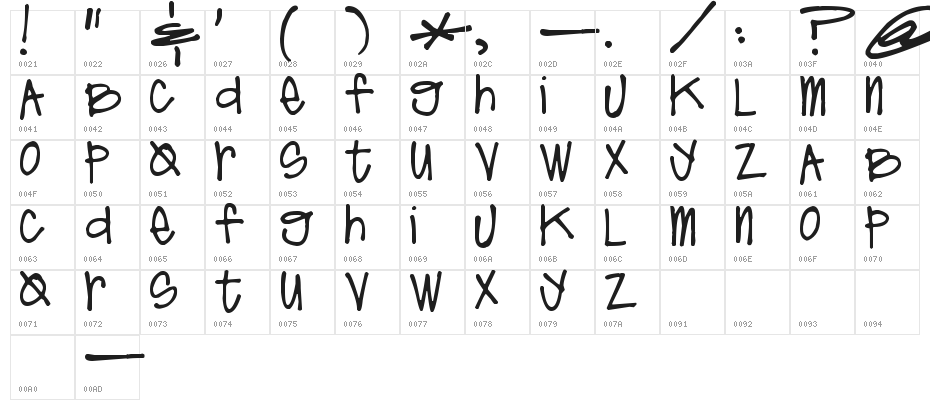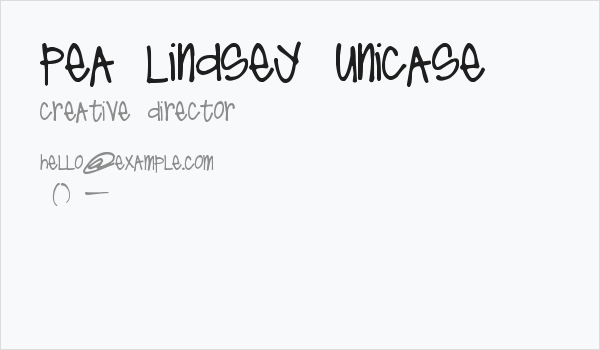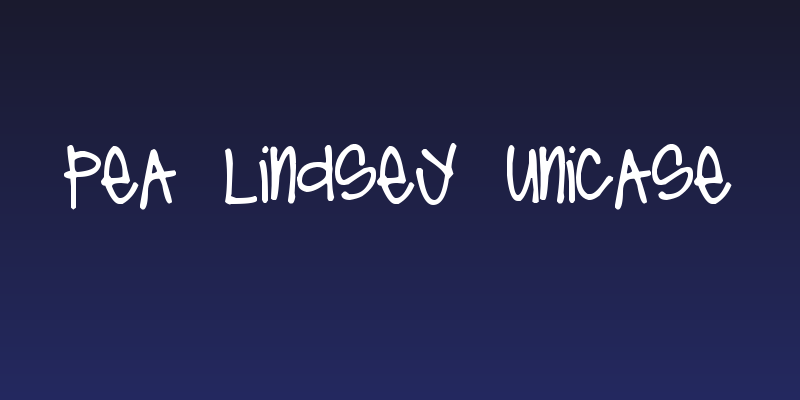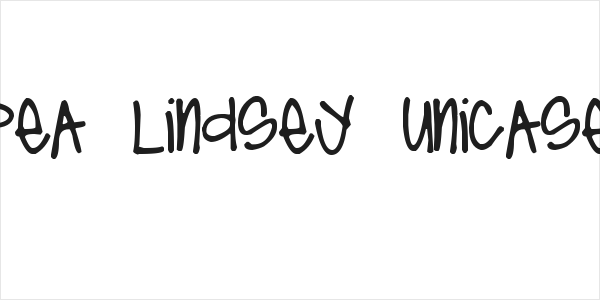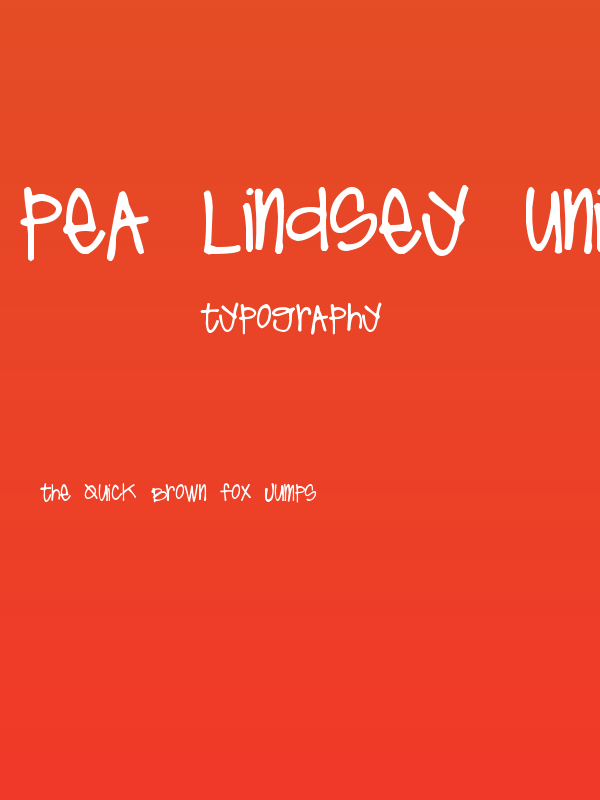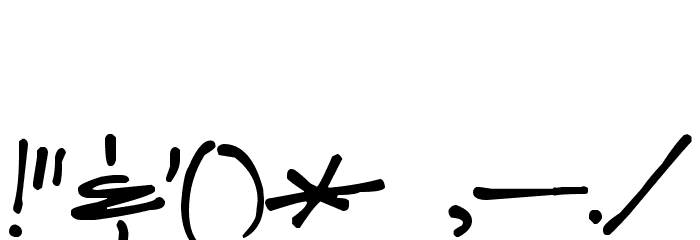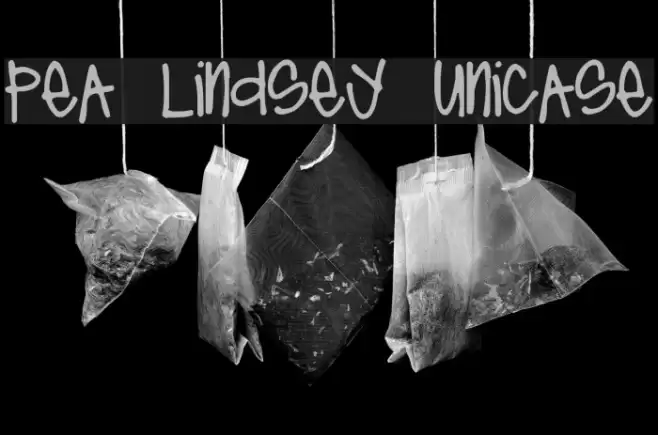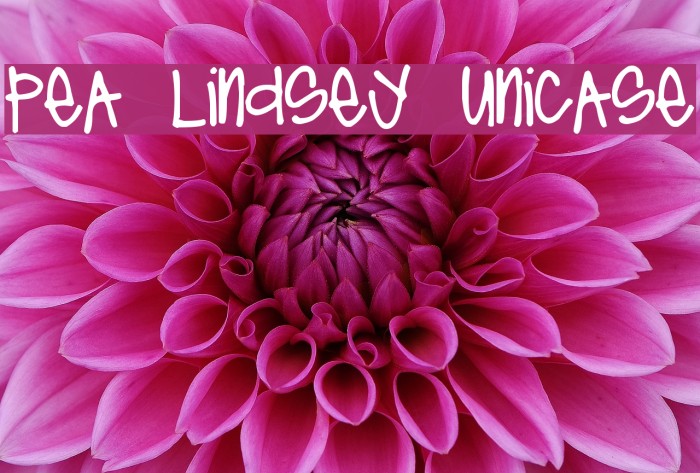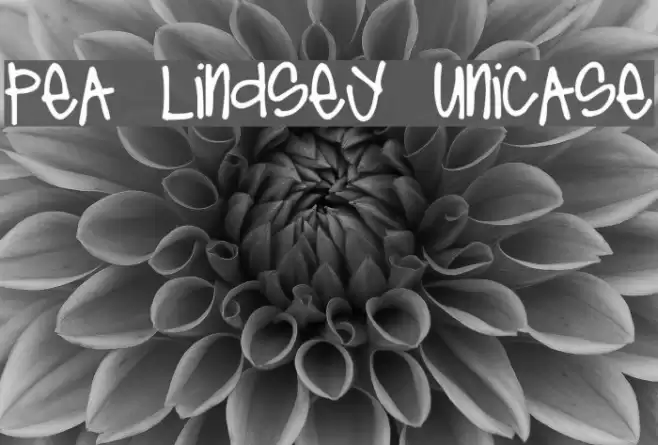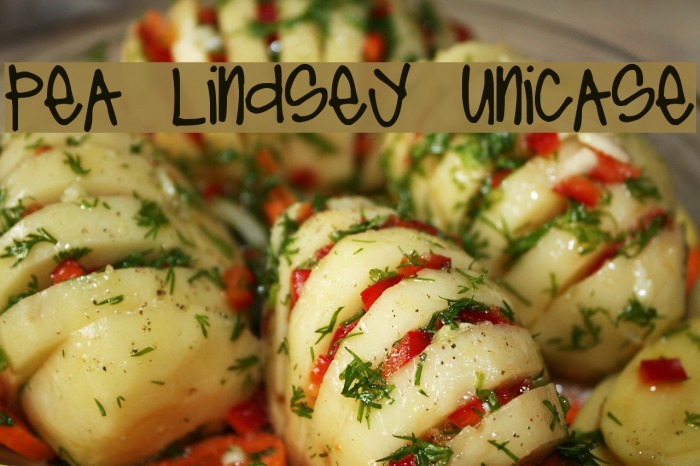
Pea Lindsey Unicase Font
Pea Lindsey Unicase Description
This playful and whimsical font features a handwritten style with a unique blend of uppercase and lowercase letters. The characters are bold and have a casual, friendly appearance, making them ideal for informal and creative projects. The strokes are consistent in thickness, providing a uniform look across all characters. The font includes a full set of uppercase and lowercase letters, numbers, and a variety of special characters, each maintaining the same lively and energetic style. The overall design is approachable and fun, perfect for projects that require a personal touch.
| Overall Style | Casual, Playful |
| Use Case | Headlines, Logos, Informal Text |
| Proposed Projects | Ideal for greeting cards, children's books, playful branding, and social media graphics. |